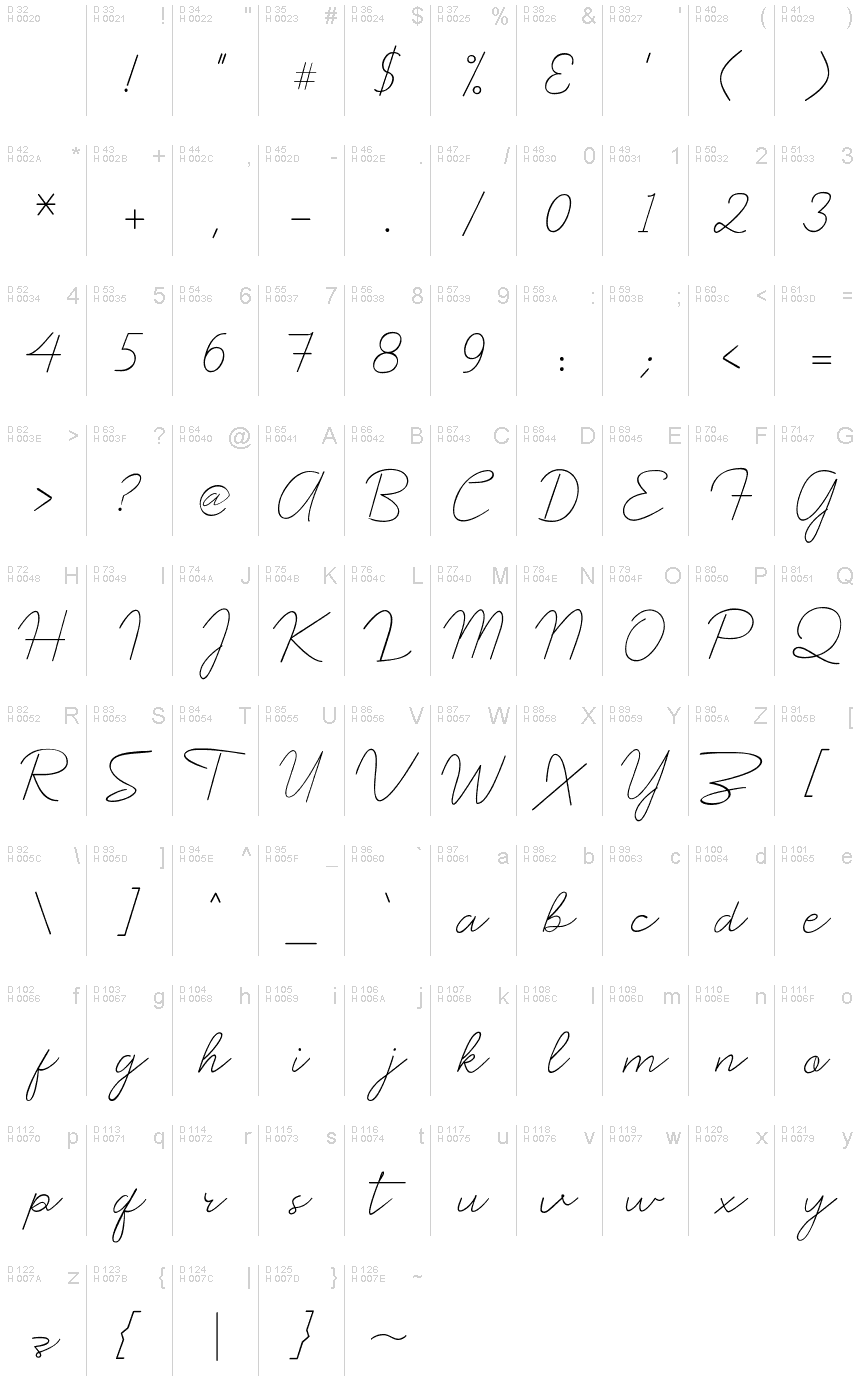
Prochok Regular
Prochok, a creation of Le Parte Studio, brings the charm of handwritten artistry to the digital realm. With its extra-light weight, this font exudes a delicate and refined elegance that captures the essence of personal touch in every curve and line. The graceful flow of Prochok's characters brings a sense of intimacy and authenticity to any project, making it an excellent choice for invitations, branding materials, and editorial design where subtlety is key. Its aesthetic appeal lies in its ability to mimic the nuances of actual handwriting while maintaining clarity and readability. Whether used for a boutique's logo or the pages of a poetry book, Prochok promises to add an organic and bespoke feel to your creative endeavors.